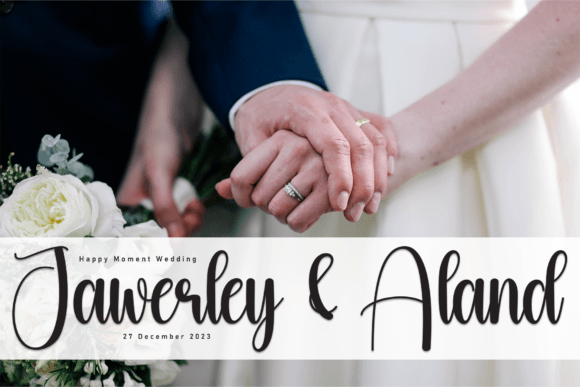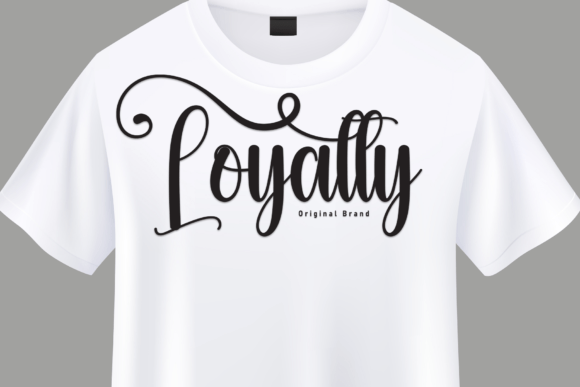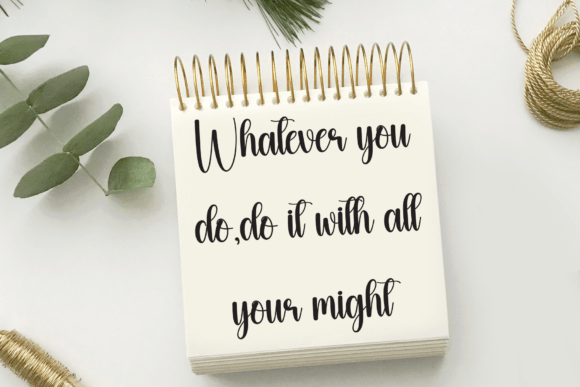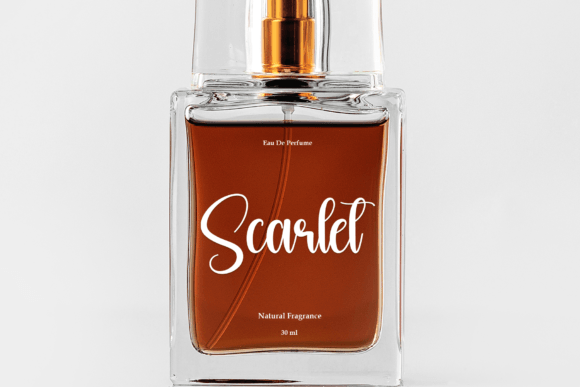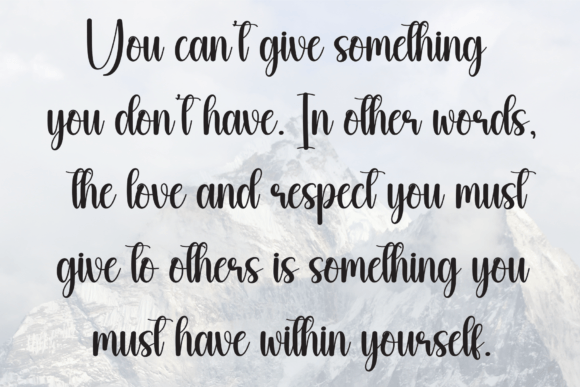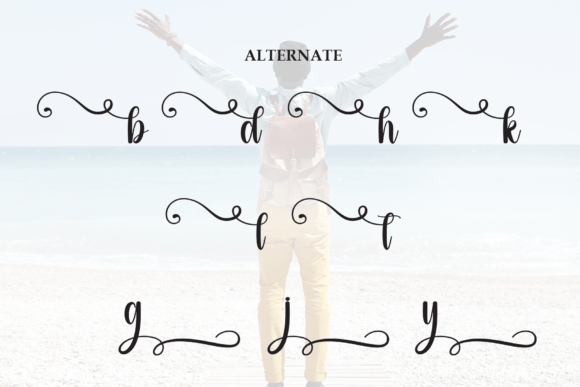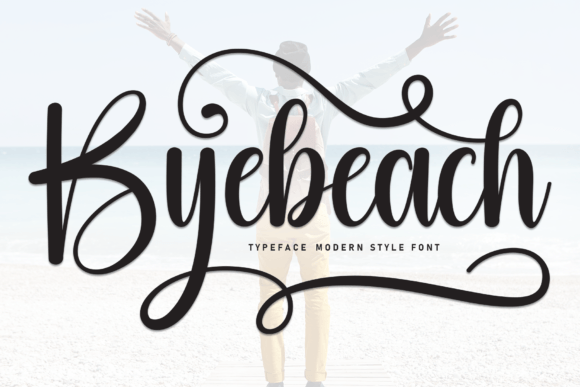
The Elusive Font: A Designer’s Love Affair with Byebeach
I’ll never forget the frustration of working on a project, hours pouring into every detail, only to hit a roadblock: the perfect font. My client wanted something elegant, yet playful; something that would make their brand stand out. And then, like a breath of fresh air, I stumbled upon Byebeach. This stunning handwritten font swept me off my feet with its flowing lines and timeless charm. In this article, I’ll share my journey with Byebeach, its features, and how you can make the most of it in your designs.
First Impressions: A Love Letter to Byebeach
Byebeach is described as a flowing handwritten font with an elegant touch, perfect for a wide range of projects. And I couldn’t agree more! Its distinct style is both classic and modern, making it incredibly versatile. Here’s what I love about Byebeach:
• ✨ Elegant and flowing lines that add a touch of sophistication to any design
• 🌈 A wide range of OpenType features, including glyphs and stylistic alternates
• 💫 Perfect for creating beautiful headings, titles, and quotes
The Not-So-Perfect Font: A Few Quirks
While Byebeach has stolen my heart, it’s not without its limitations. Here are a few things to keep in mind:
• 🤔 Some users may find the font a bit too ornate for very small font sizes or body text
• ⚠️ Limited availability of certain characters or symbols, so be sure to check the font’s capabilities before committing to a project
The Story Behind Byebeach: Designer Inspiration
While the true story behind Byebeach may be unknown, it’s easy to imagine a designer sitting by the beach, inspired by the flowing lines of the waves and the elegance of a sunset. Byebeach’s creator likely wanted to capture the essence of a carefree, coastal lifestyle in a font that would evoke feelings of serenity and joy.
What makes Byebeach unique? Byebeach’s unique blend of elegance and playfulness, combined with its highly legible design and extensive OpenType features.
Is Byebeach suitable for body text? While Byebeach is beautiful, it may not be the best choice for body text, especially at small font sizes. It’s better suited for headings, titles, and quotes.
In conclusion, Byebeach is a stunning handwritten font that can elevate your designs to new heights. With its elegant touch, flowing lines, and extensive OpenType features, it’s perfect for a wide range of projects. By following this guide, you’ll be well on your way to creating spectacular designs with Byebeach.